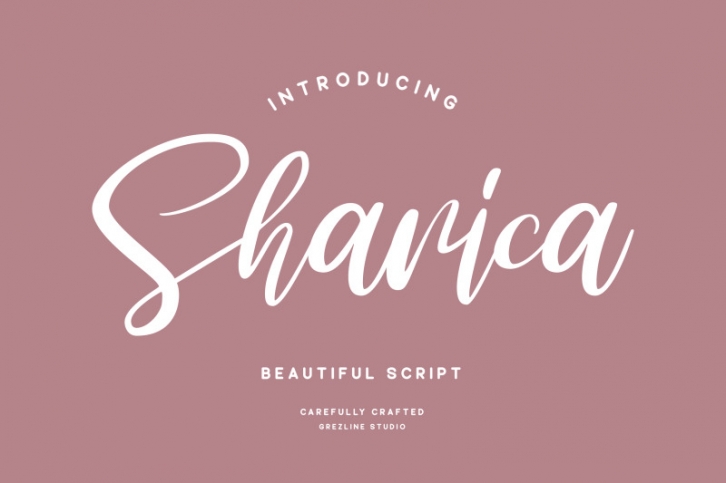
Sharica - Script Font Download
Sharica is a fresh, bouncy handdrawn script font crafted very carefully. Sharica is perfect use for a logo for branding, typography design, christmas card, product packaging, invitation, quotes, t-shirt design, label poster, special events and anything that need handwriting taste.
Feature :
- Ton of glyphs ( include Uppercase, Lowercase, Numerals, Punctuations & Ligatures )
- Multilingual Language